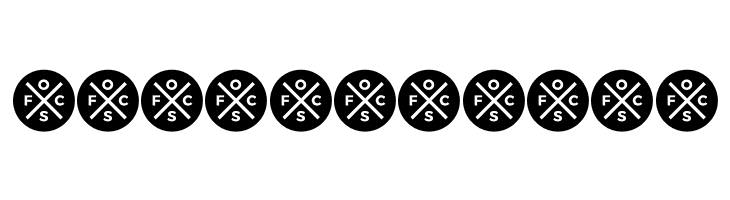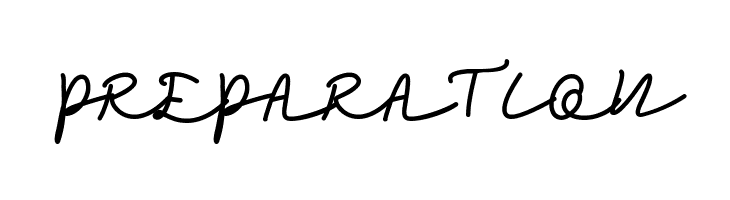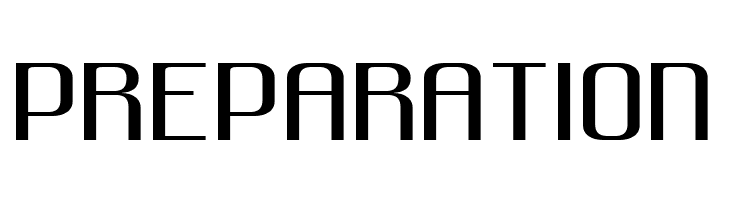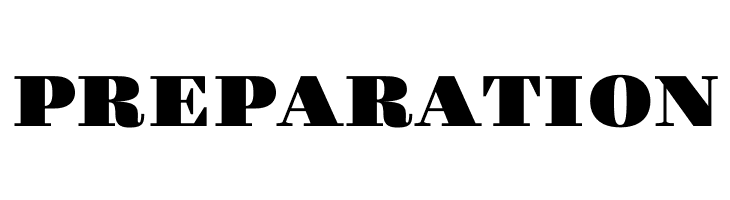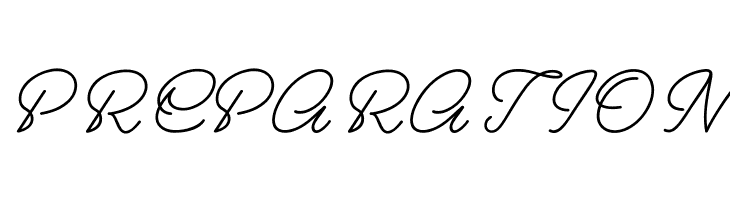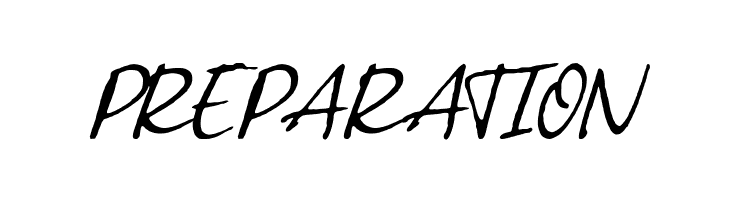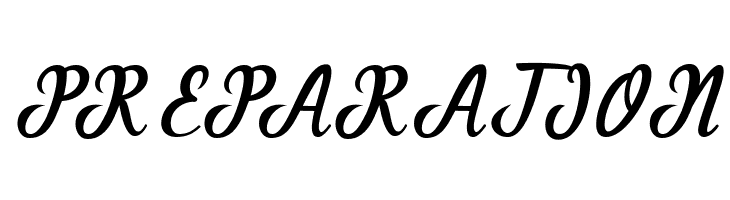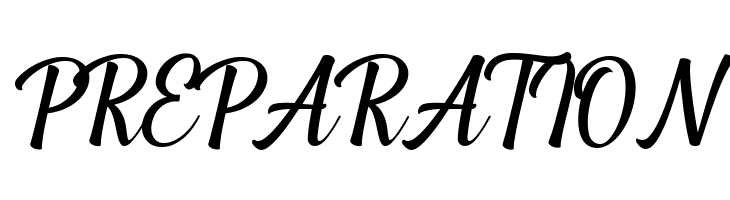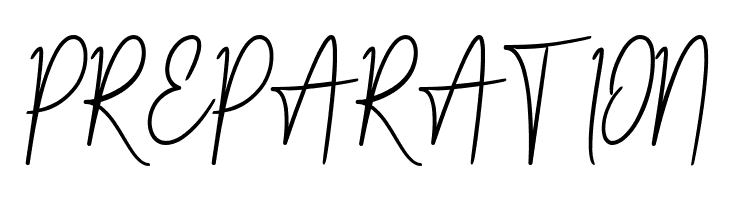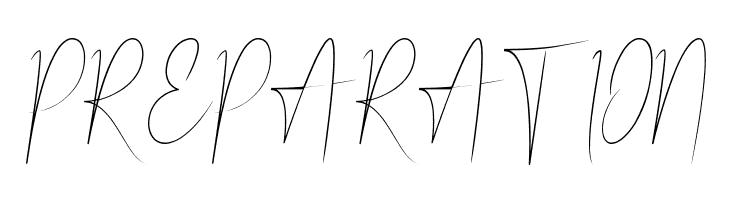
( Fonts by Greentrik6789 - Tri Kuncoro - Personal-use only. For commercial use please contact owner. ) A flowing, cursive script font with elegant loops and swashes. Download 42 Downloads@WebFont
( Fonts by Greentrik6789 - Tri Kuncoro - Personal-use only. For commercial use please contact owner. ) A dynamic and fluid script font with elegant, flowing letterforms. Download 59 Downloads@WebFont
( Fonts by Greentrik6789 - Tri Kuncoro - Personal-use only. For commercial use please contact owner. ) A graceful and elegant script font with flowing, connected strokes. Download 51 Downloads@WebFont
( Fonts by Sutype - Ignatius Sutono - Personal-use only. For commercial use please contact owner. ) A lively and expressive script font with elegant swashes and interconnected letters. Download 27 Downloads@WebFont
( Fonts by Sutype - Ignatius Sutono - Personal-use only. For commercial use please contact owner. ) A lively and expressive script font with elegant curves and dynamic flourishes. Download 28 Downloads@WebFont
( Fonts by GLUK fonts ) A modern, geometric font with clean lines and a structured, professional appearance. Download 305 Downloads@WebFont
( Fonts by Måns Grebäck ) A graceful, cursive script font with a natural handwritten style. Download 538 Downloads@WebFont
( Fonts by Ferdiansyah ) A bold, expressive handwritten font with a playful and dynamic style. Download 118 Downloads@WebFont
( Fonts by Out of Step Font Company - Dan Steinbok - outofstepfontco.com - Personal-use only. For commercial use please contact owner. ) A graffiti-inspired script font with bold, angular letters and a rebellious flair. Download 79 Downloads@WebFont
( Fonts by ArtzaGraph Studio - Personal-use only. For commercial use please contact owner. ) A graceful script font with flowing, interconnected cursive letters. Download 41 Downloads@WebFont
( Fonts by Damarletter ) A dynamic, cursive script font with a fluid, handwritten style. Download 343 Downloads@WebFont
( Fonts by Kurnia Setyadi - Personal-use only. For commercial use please contact owner. ) An elegant and flowing script font with smooth curves and connected letters. Download 40 Downloads@WebFont
( Fonts by Rick Mueller ) A bold, medieval-inspired font with sharp serifs and dramatic strokes. Download 9933 Downloads@WebFont
( Fonts by Sorkin Type Co ) A bold, slab serif font with a strong and commanding presence. Download 326 Downloads@WebFont
( Fonts by Atha Ruah - Personal-use only. For commercial use please contact owner. ) A dynamic and energetic script font with a fluid, handwritten style. Download 63 Downloads@WebFont
( Fonts by Creative Lab - Creative LAB - Personal-use only. For commercial use please contact owner. ) A sophisticated script font with flowing, cursive letterforms. Download 94 Downloads@WebFont
( Fonts by Great Studio - Mulkan Nazir - Personal-use only. For commercial use please contact owner. ) A lively, cursive script font with smooth, connected strokes and medium contrast. Download 291 Downloads@WebFont
( Fonts by Rick Mueller ) A playful, hand-drawn font with artistic flair and dynamic strokes. Download 1007 Downloads@WebFont
( Fonts by Romi Rahmadi - Personal-use only. For commercial use please contact owner. ) An elegant script font with flowing, interconnected letters and high contrast strokes. Download 85 Downloads@WebFont
( Fonts by Romi Rahmadi - Personal-use only. For commercial use please contact owner. ) An elegant script font with fluid, cursive strokes and refined flourishes. Download 36 Downloads@WebFont
( Fonts by Helotype ) A charming, fluid cursive script with interconnected letters and playful elegance. Download 387 Downloads@WebFont
( Fonts by Nuryanto Dwi - Personal-use only. For commercial use please contact owner. ) A playful and elegant script font with flowing, interconnected strokes. Download 41 Downloads@WebFont
( Fonts by dcoxy ) A graceful script font with fluid, connected strokes and a natural handwriting style. Download 389 Downloads@WebFont
( Copyright (c) 2010, 2011 vernon adams (vern@newtypography.co.uk) ) A modern, geometric sans-serif font with clean lines and balanced spacing. Download 9550 Downloads@WebFont
( Fonts by Carlos Zubia ) A bold, hand-painted style font with a dynamic, graffiti-like appearance. Download 448 Downloads@WebFont
( Fonts by Mans Greback - Personal-use only. For commercial use please contact owner. ) A textured, distressed script font with a handcrafted, vintage feel. Download 34 Downloads@WebFont